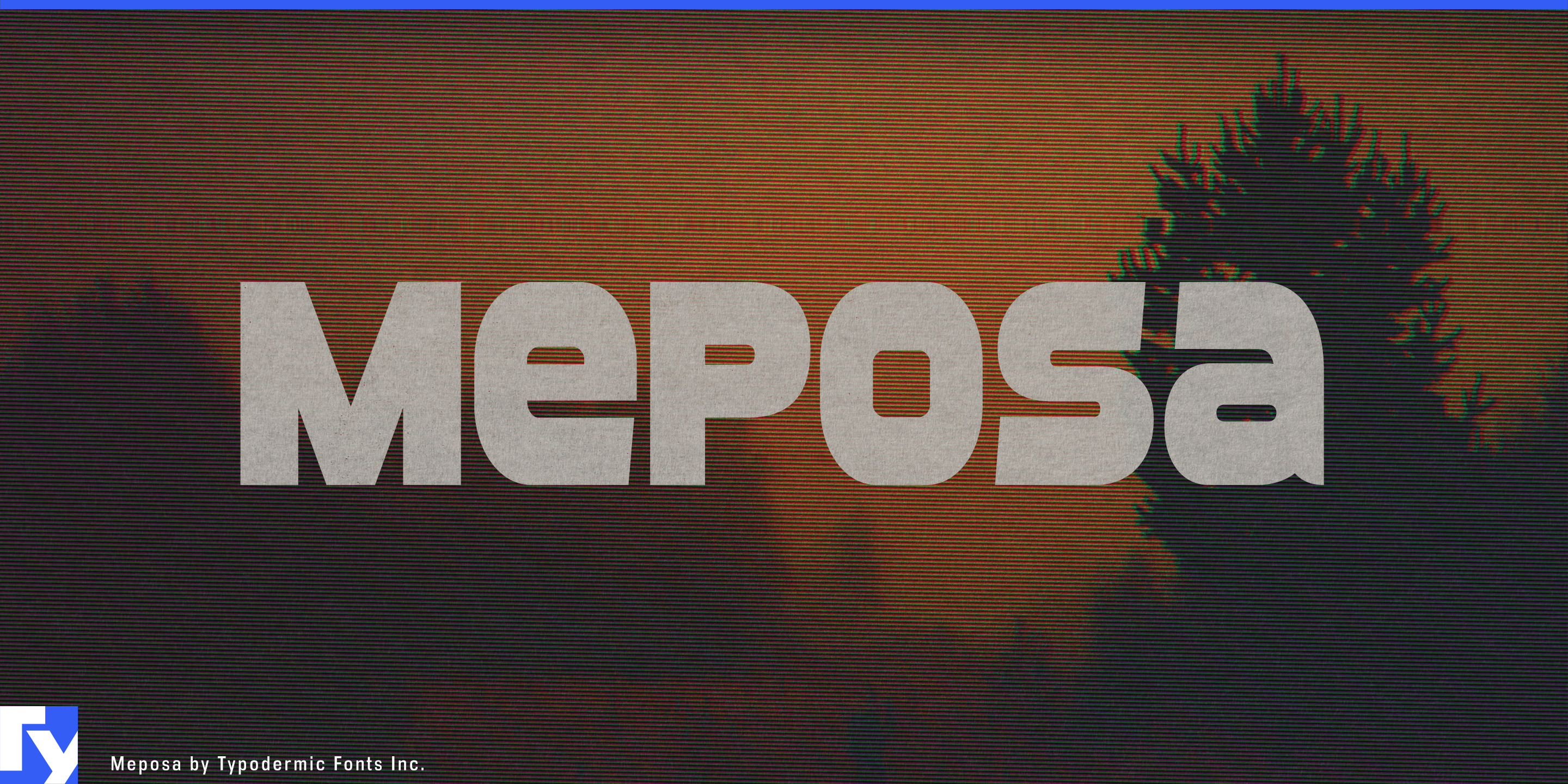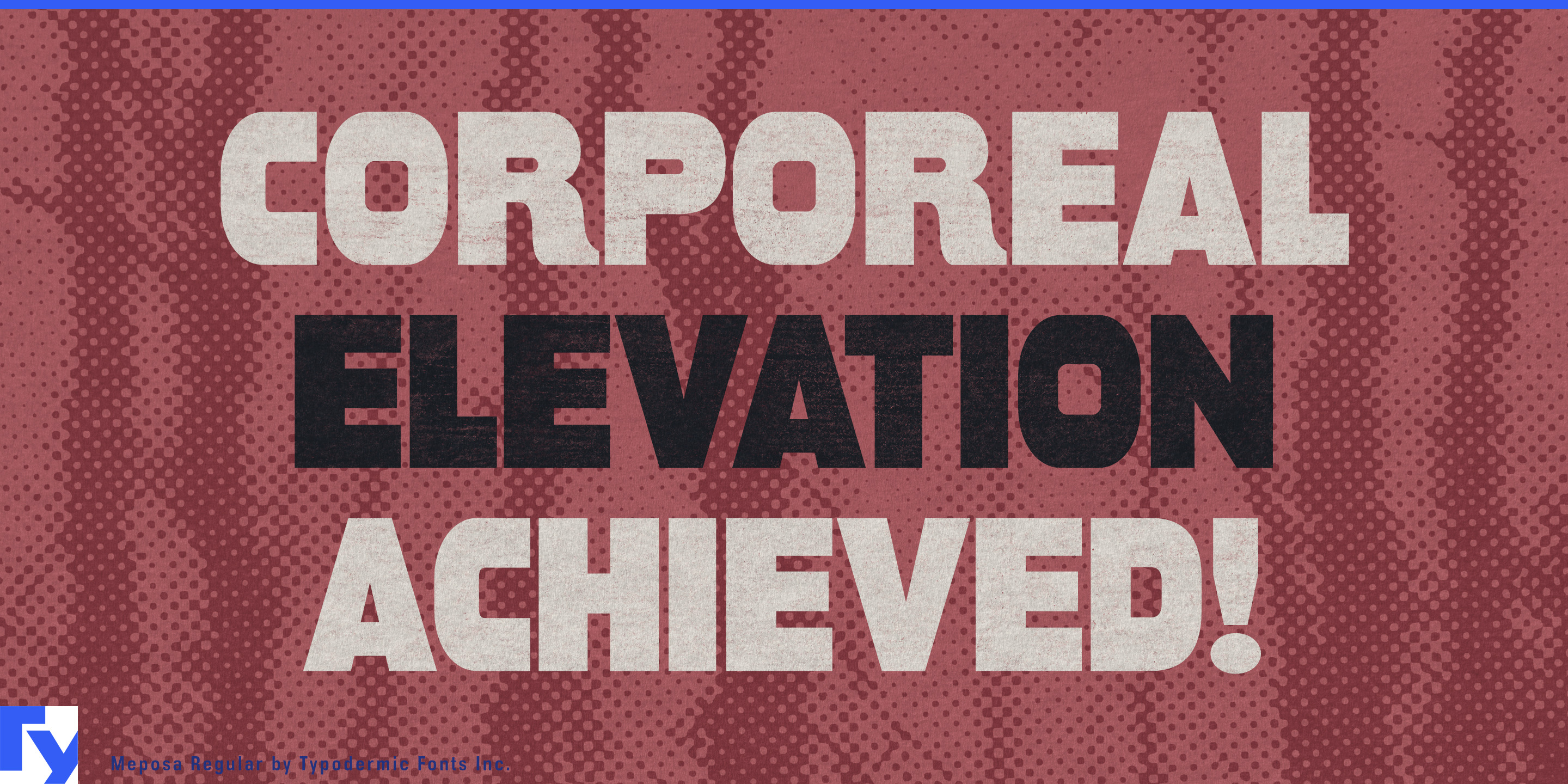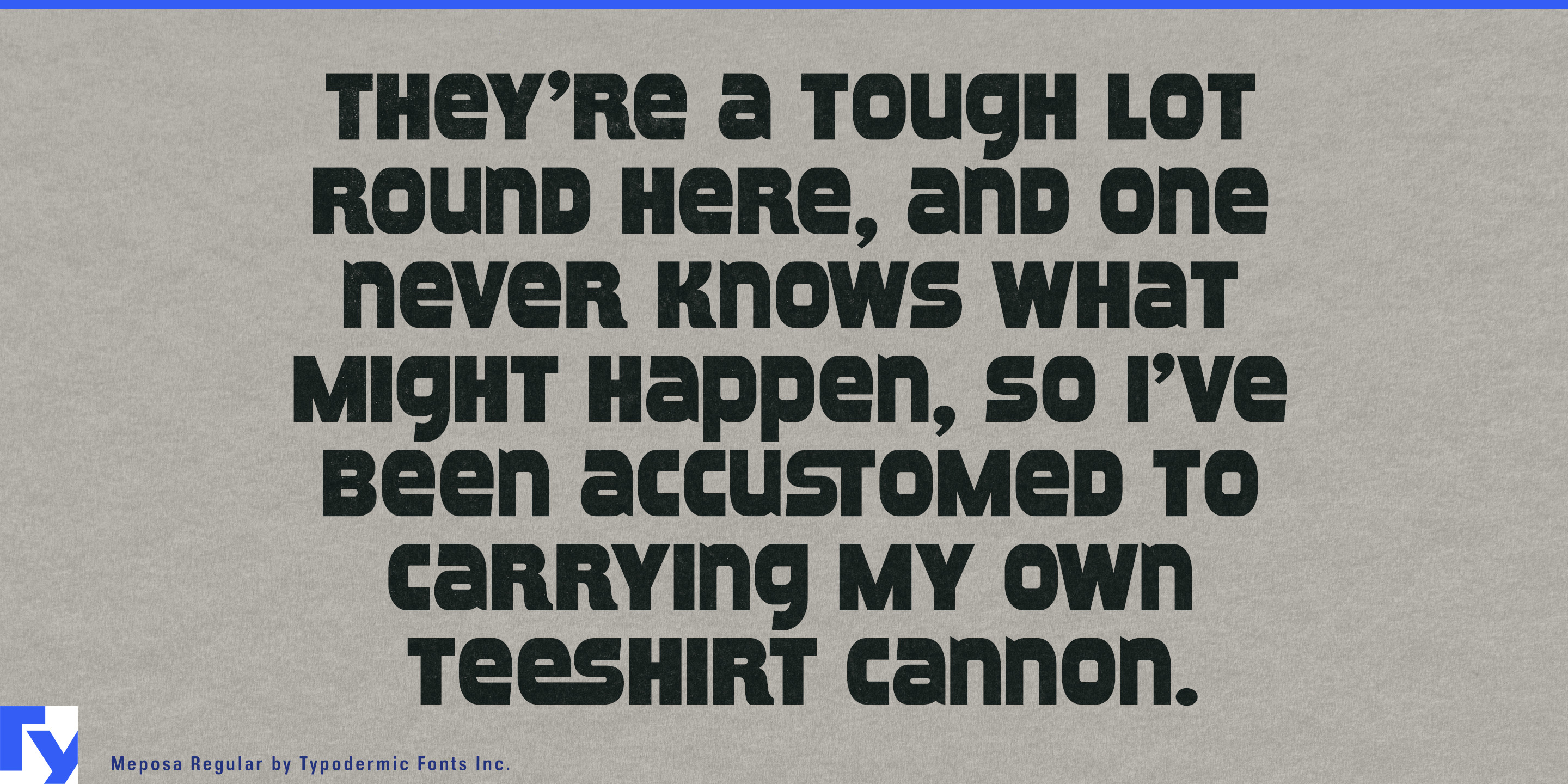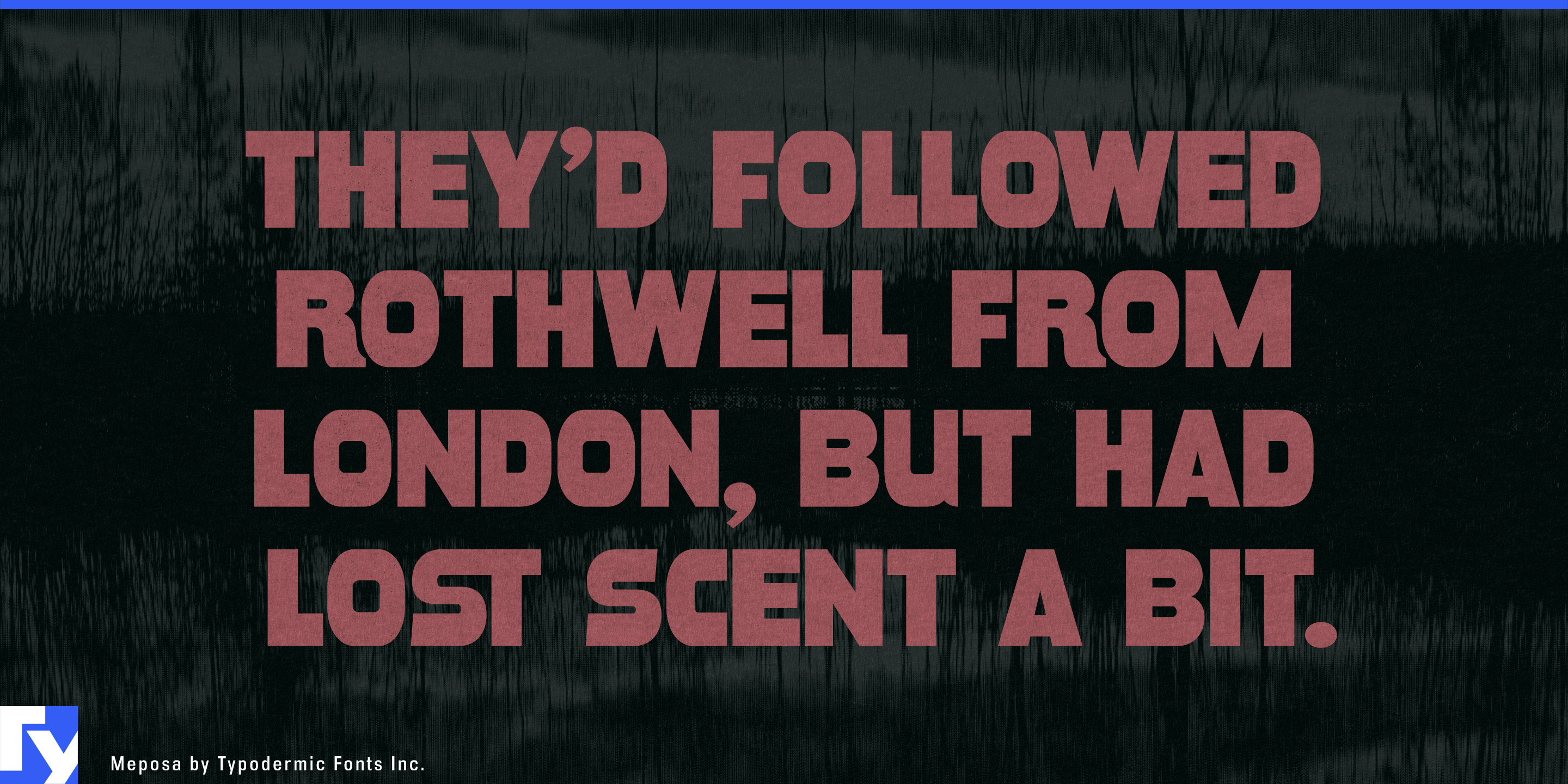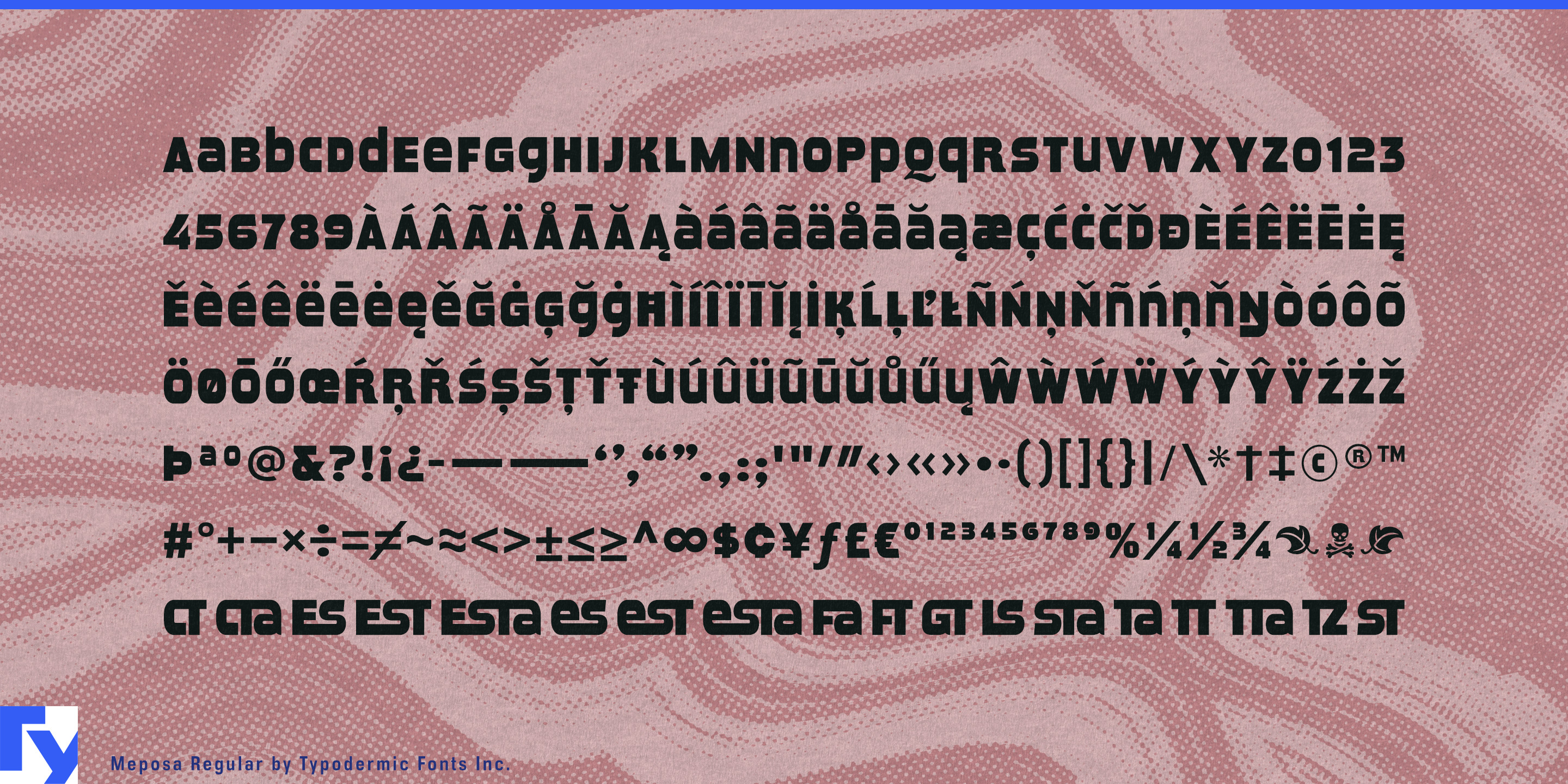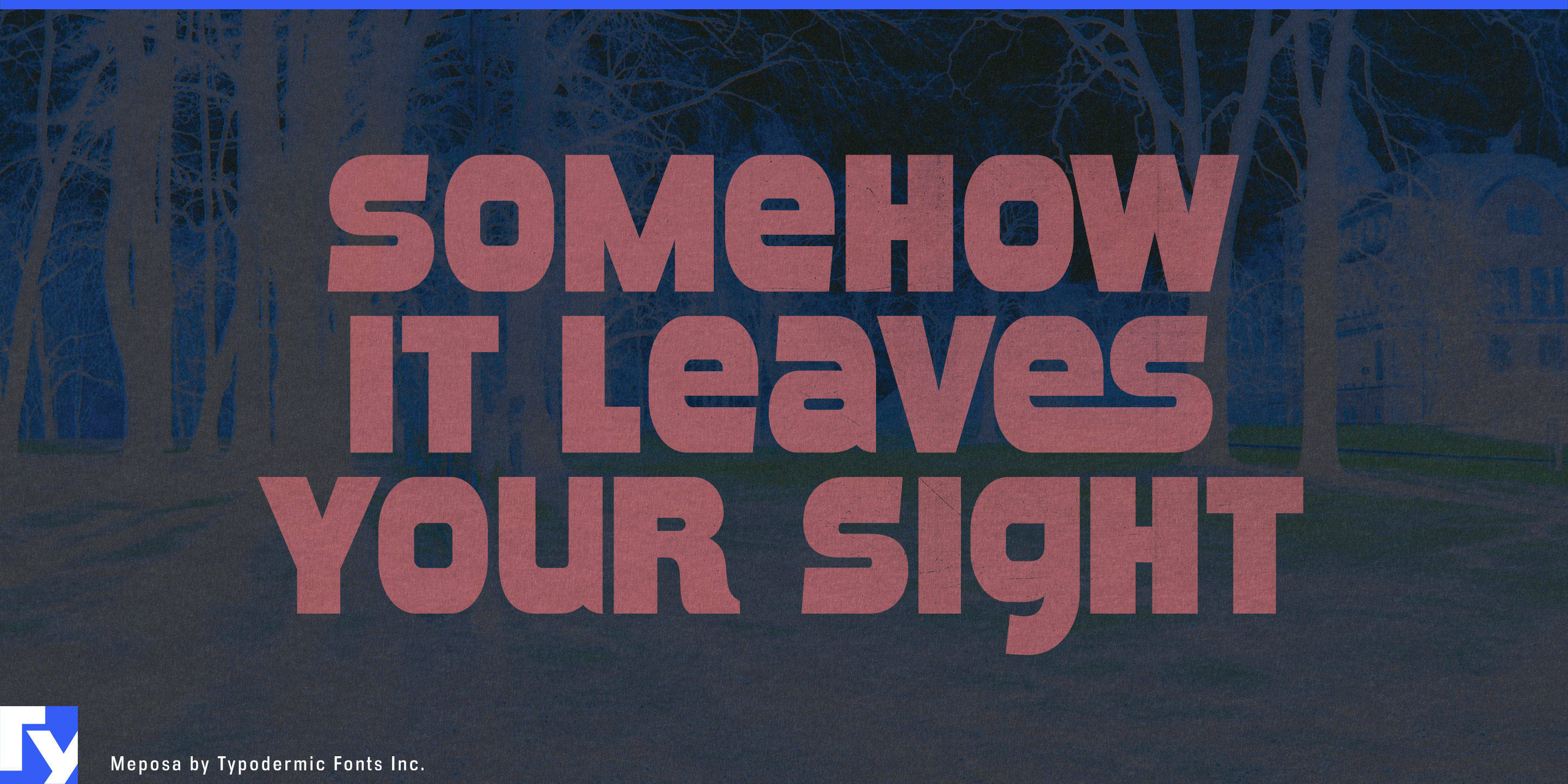
Meposa
Future-facing outdoor brands often face an awkward visual choice. Heritage camping typography can make advanced equipment look nostalgic; tactical lettering pushes everything toward defense; sleek geometric tech fonts can feel strangely fragile once the product is covered in mud, repaired in the field, and packed back into a truck. Meposa offers another route. Its heavy, peculiar forms feel simultaneously handmade, industrial, retro, and technological, as though they came from a future where sophisticated machinery has been ordinary long enough to acquire some history.
That makes Meposa particularly useful for near-future camping and off-grid equipment. Portable power stations, modular battery systems, folding solar arrays, water purifiers, electric camp kitchens, induction cooktops, powered coolers, storage modules, vehicle awnings, expandable shelters, camp lighting, and integrated camper systems can use it for product-family names, battery modules, transport cases, shelter graphics, packaging, instruction covers, dealer displays, and launch campaigns without looking either rustic or clinically high-tech.
Regenerative outdoor hospitality extends the same visual language into a place. Dark-sky camps, rewilding lodges, modular wilderness cabins, conservation resorts, desert field camps, off-grid coastal properties, and research-oriented retreats often combine sophisticated energy, water, and monitoring systems with low-impact living. Meposa can handle lodge names, cabin names, restaurant identities, field-station graphics, equipment stores, guest-program titles, merchandise, and campaign work without resorting to the usual leaves, tasteful serif typography, or national-park nostalgia.
Field science and environmental restoration provide a more technical application. Biodiversity-monitoring kits, wildlife cameras, acoustic sensors, portable weather stations, water-testing systems, soil monitors, field laboratories, seed-storage equipment, reforestation systems, and habitat-restoration tools are advanced products used in decidedly unpolished environments. Meposa has enough machinery in its construction to support the technology and enough irregularity to belong in the field rather than the laboratory showroom.
Autonomous land-care equipment pushes the idea further. Robotic weeders, orchard robots, greenhouse carriers, crop scouts, reforestation machines, irrigation robots, park-maintenance equipment, environmental drones, and remote field vehicles can use Meposa for model names, charging docks, battery units, removable service panels, transport cases, dealer graphics, and exhibition displays. It suits machines expected to work, get dirty, receive repairs, and go back outside.
Modular camper systems and unconventional adventure vehicles provide another natural territory. Electric camper conversions, removable interiors, deployable camp kitchens, solar awnings, off-grid trailers, compact expedition cabins, and unusual recreational vehicles can use Meposa when the desired identity is less about vanlife nostalgia and more about temporarily assembling a small, self-sufficient world wherever the vehicle stops.
Meposa is for a future that has already been lived in. It gives advanced outdoor equipment, regenerative hospitality, field technology, and autonomous machinery a visual language durable enough to look scratched, repaired, modified, and used again.